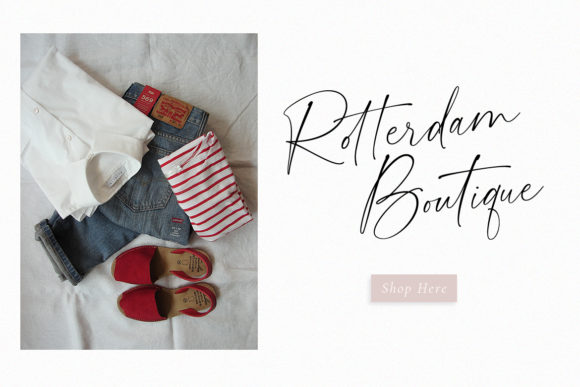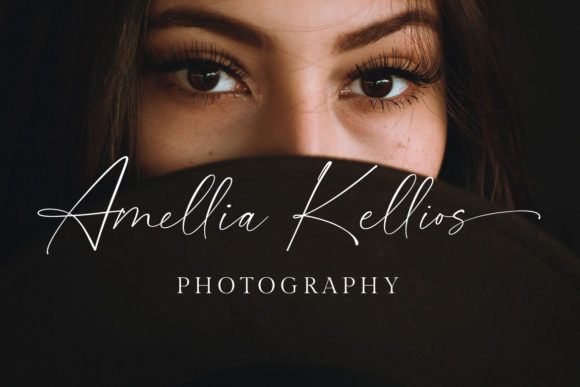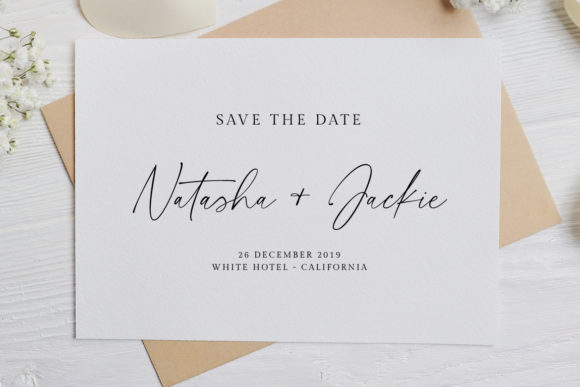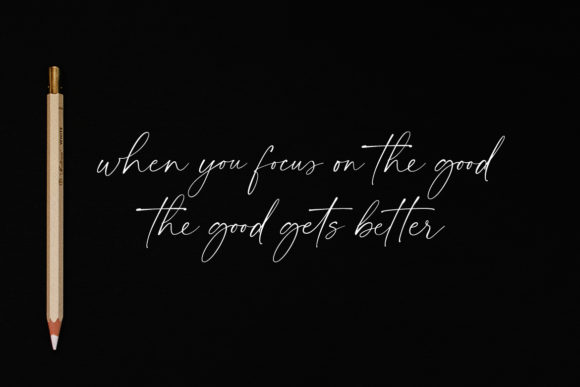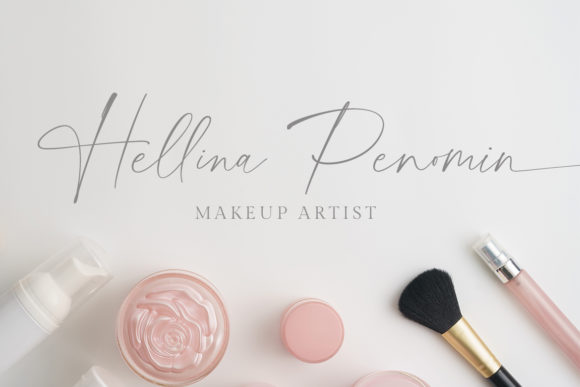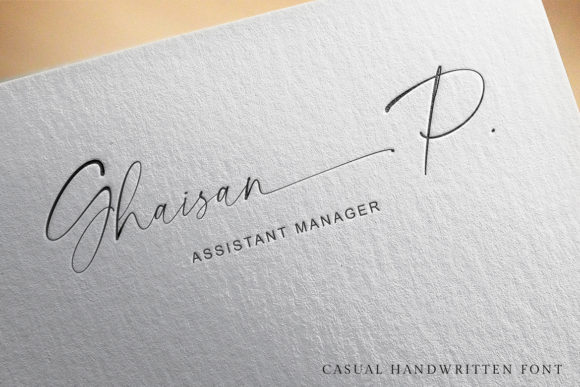
Introduction to Segatha Font Font
Fonts play a crucial role in design, and the Segatha Font font is a typeface that brings both character and versatility to any project. Whether you’re working on a branding project, a website, or a print design, the Segatha Font font offers a unique style that can elevate your work.
Segatha contains daring and luscious swashes that radiate authenticity.
Itβs your go-to font for adding that personal zing to your next design idea .
Key Features of Segatha Font Font
Why Choose Segatha Font Font?
The Segatha Font font is more than just a typeface β it’s a design tool that helps you communicate your message with style and clarity. Its unique character set and versatile design make it suitable for a wide range of applications, from elegant invitations to bold headlines.
With its carefully crafted letterforms and balanced proportions, the Segatha Font font ensures readability and visual appeal across all mediums.
What makes Segatha Font font special?
The Segatha Font font stands out with its unique design, exceptional readability, and versatility across various design applications.